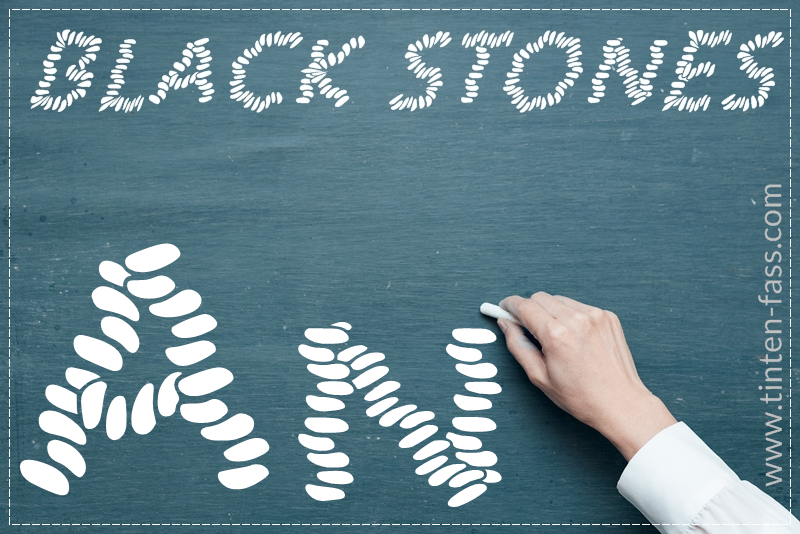
Font name: | Black Stones |
Author: | Martin Steiner |
What is "Black Stones"? This is the latest font from Tinten-Fass.Com Design! It is whacky and fun, looks great as text, and guaranteed to make your documents more fun! Is it shareware? No! This is FREEWARE! This product 100% free for personal use & commercial use! Where is the World Wide Web site? https://www.tinten-fass.com I'm happy about every little attention. So you help me to continue to realize such projects as this! For Donation: paypal.me/TintenFassCom Yours sincerely Der Tintenfisch im Tinten-Fass.Com |